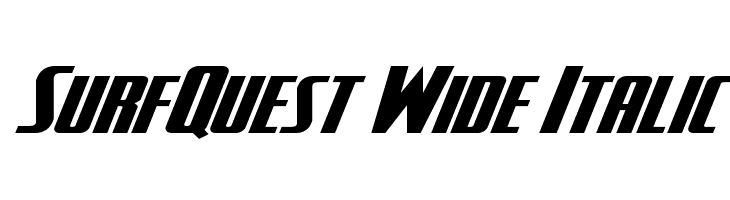
A bold, condensed font with geometric shapes and strong visual impact.
A bold, 3D outlined font with a vintage, geometric style.
A bold, 3D italic font with a modern, dynamic style.
A bold, 3D semi-italic font with a dynamic and modern style.
A bold, condensed font with sharp, angular edges and a modern style.
A bold, compact italic font with high contrast and dynamic style.
A bold, semi-italic, and compact font with a modern, dynamic style.
A bold, condensed font with sharp angles and a modern aesthetic.
A bold, condensed, and italicized font with a dynamic and modern style.
A bold, condensed, semi-italic font with a modern and dynamic style.